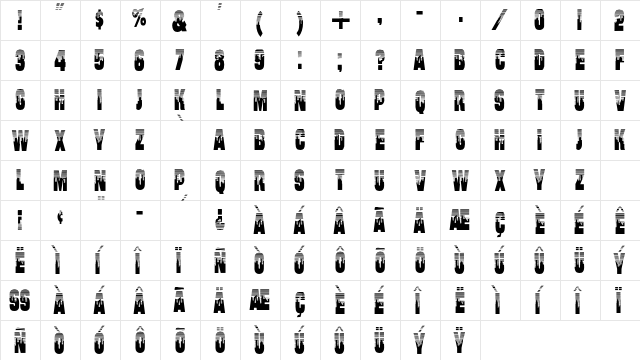
Will-Harris Regular
| Designer | Dieter Steffmann |
Design Context for Will-Harris Typeface
Will-Harris is a composed and adaptable typeface that performs quietly and consistently across a wide range of design contexts.